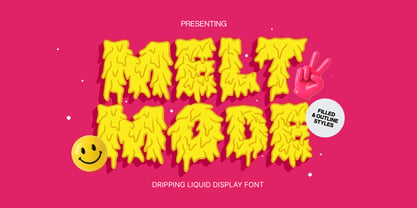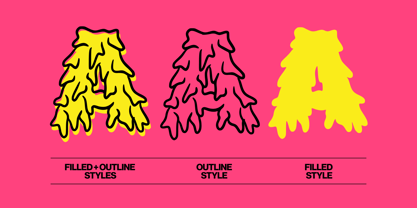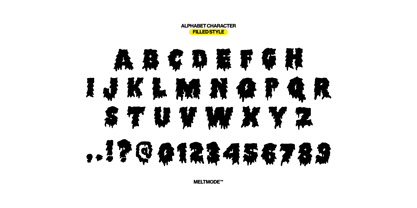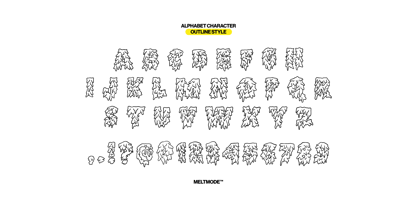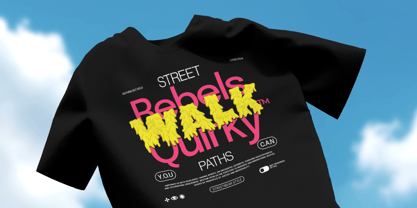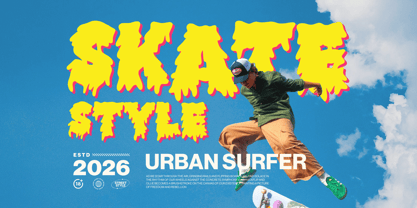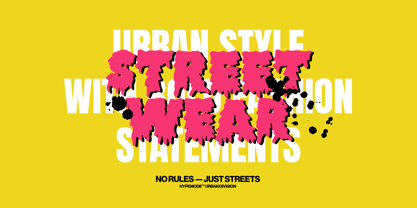
Meltmode
by Imoodev
The Meltmode Font Family was designed by Aulia Savira Putri and published by Imoodev. Meltmode contains 2 styles and family package options. More about this family
Meltmode is a dripping liquid experimental display font designed to bring a high energy, "melting" aesthetic to your creative projects, this font features thick, drips that give and a fluid, liquid like structure, this font captures the raw essence of street culture, slime aesthetics, and psychedelic visuals. This typeface comes in two distinct styles Filled and Outline, which can be used independently or layered together to create a dynamic, three dimensional effect. Whether you're designing for streetwear, skate culture graphics, an edgy music poster, or bold editorial headlines, Meltmode offers a rebellious, "no rules" vibe that stands out on any canvas. Two Distinct Styles: Includes Filled and Outline. Urban Aesthetic: Perfectly suited for skatewear, Y2K, tshirt designs, posters, album covers, branding, and social media content.
Designers: Aulia Savira Putri
Foundry: Imoodev